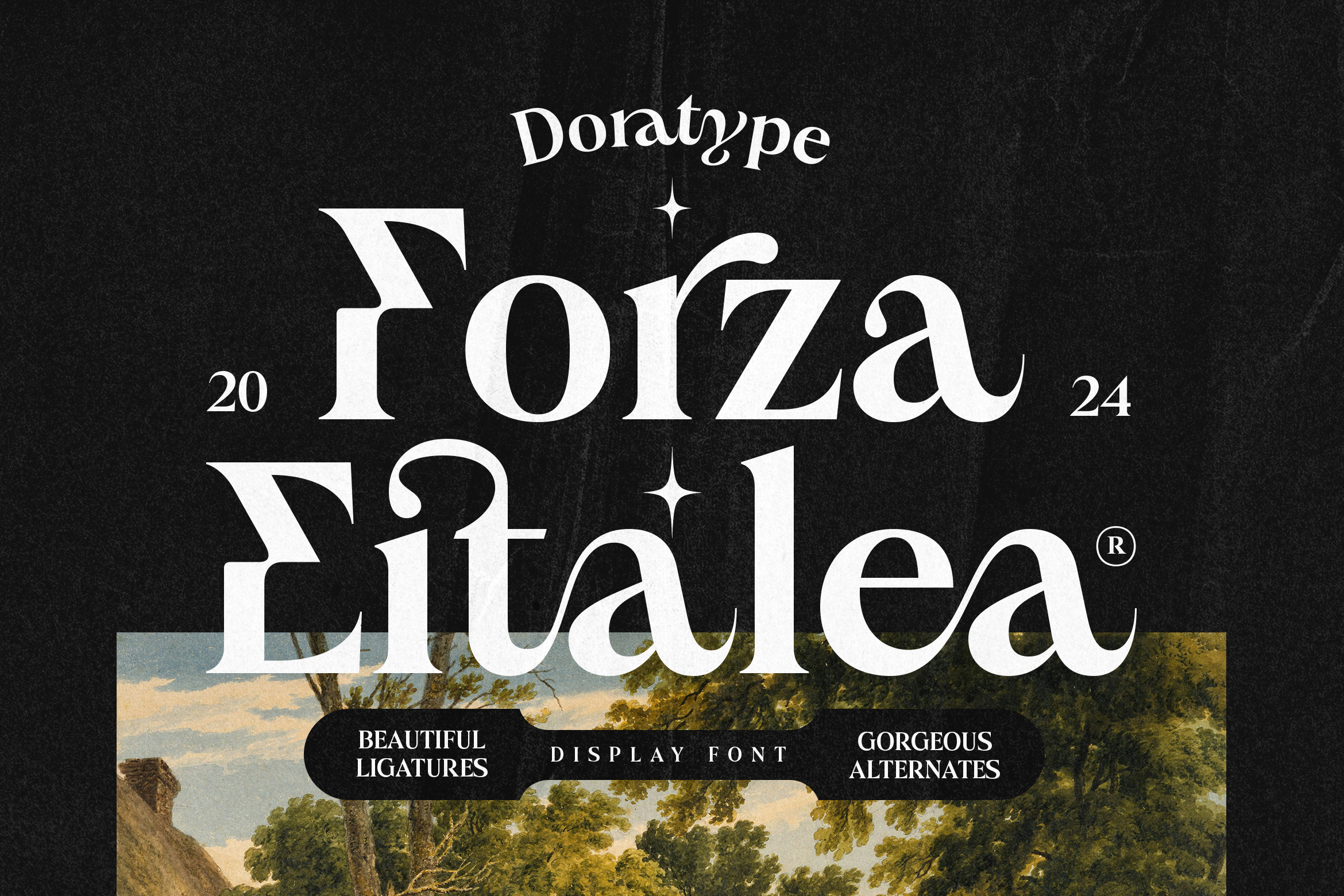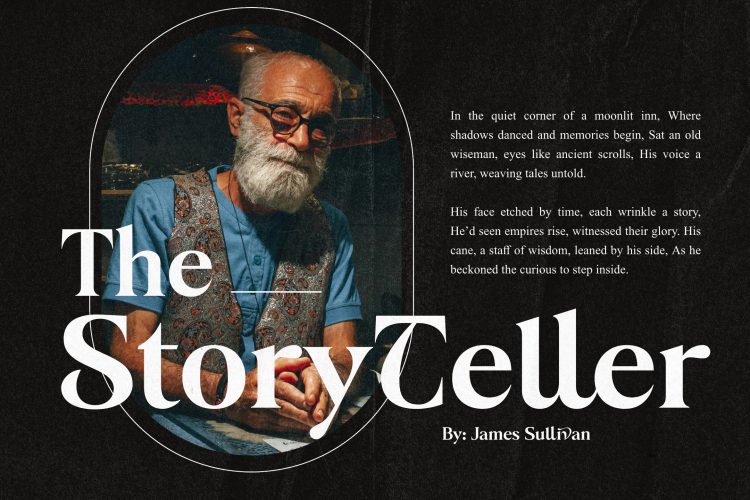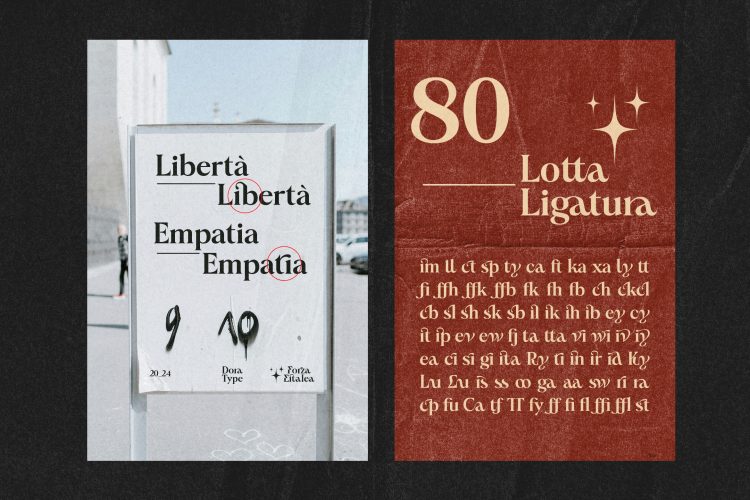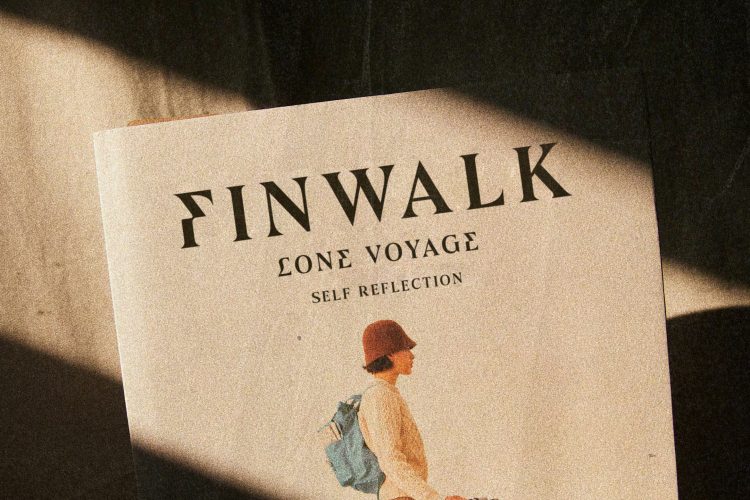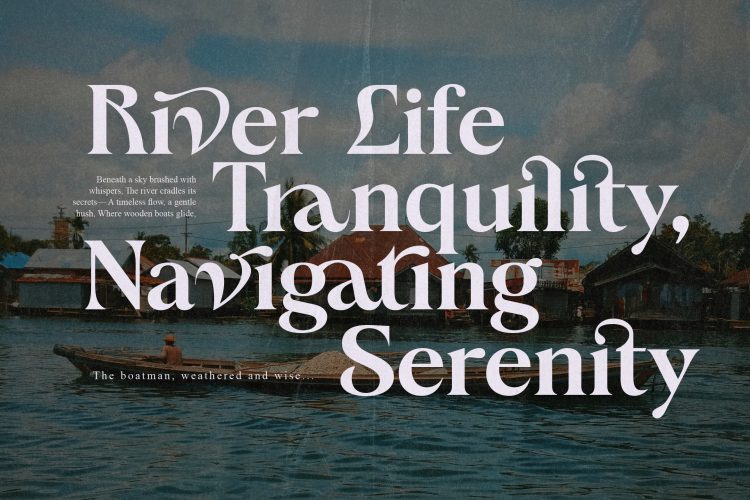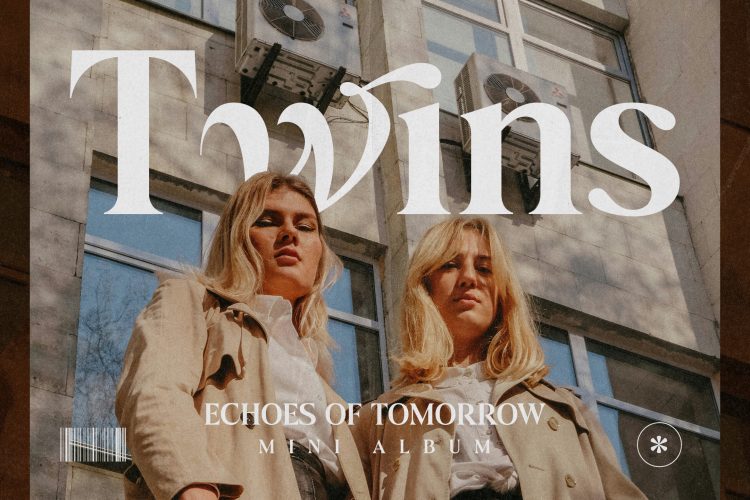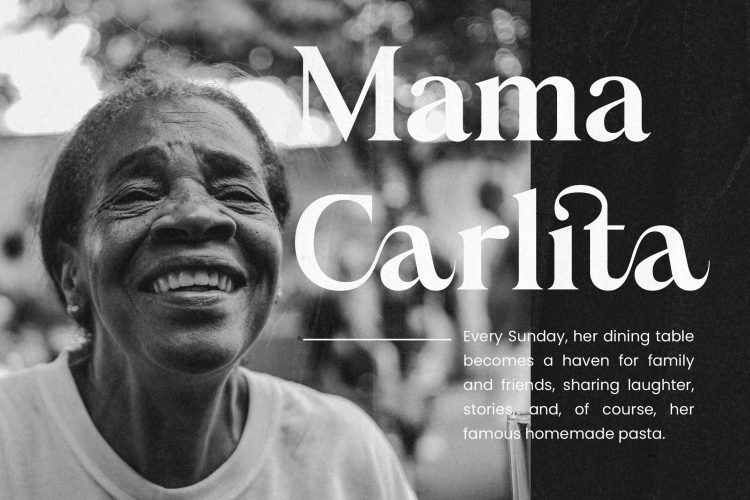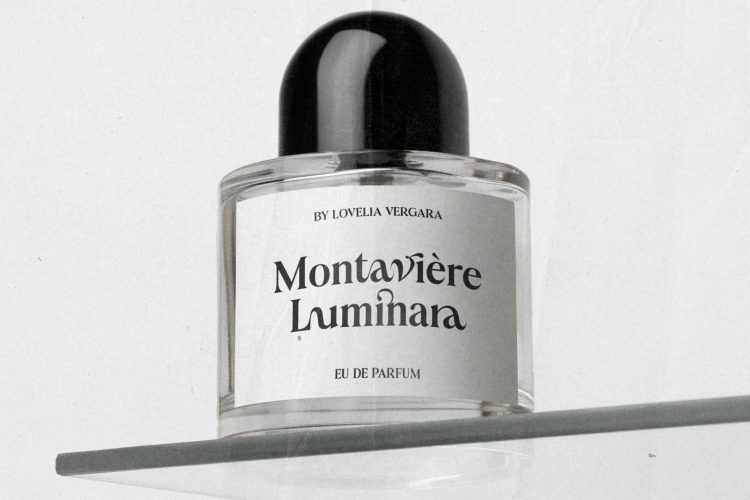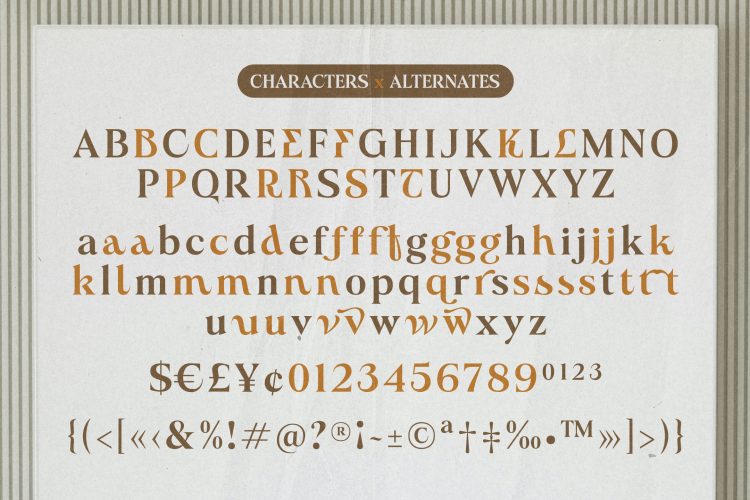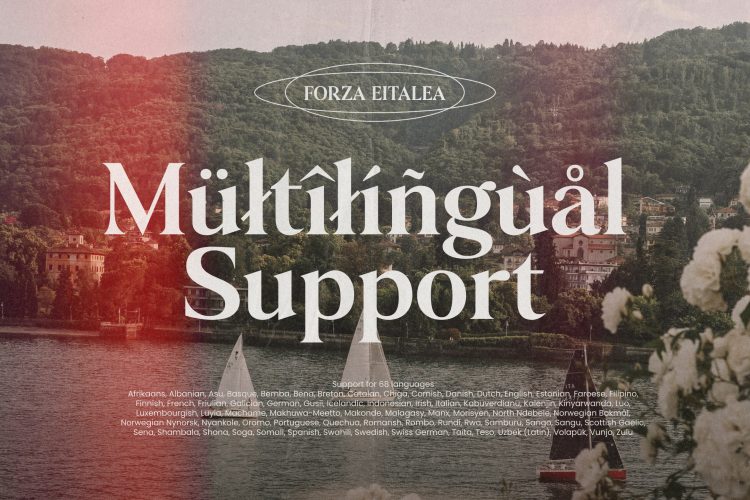
Introducing Forza Eitalea is a classic and classy modern serif typeface that radiates and is bold and looks amazing in both large and small settings. Forza Eitalea also has a wide selection of alternatives and ligatures ideal for any project that requires a touch of vintage charm and a modern aesthetic.
- All Uppercase and Lowercase
- Numbers & Symbols
- Supported Languages
- Alternates and Ligatures